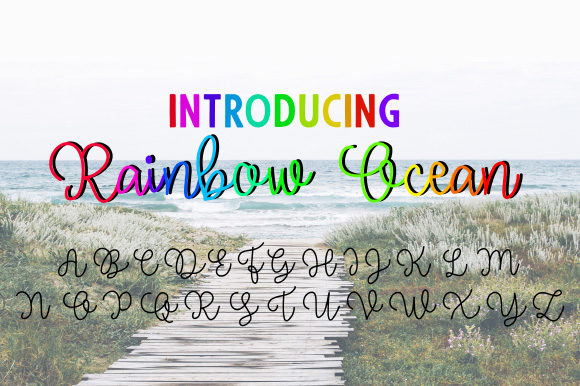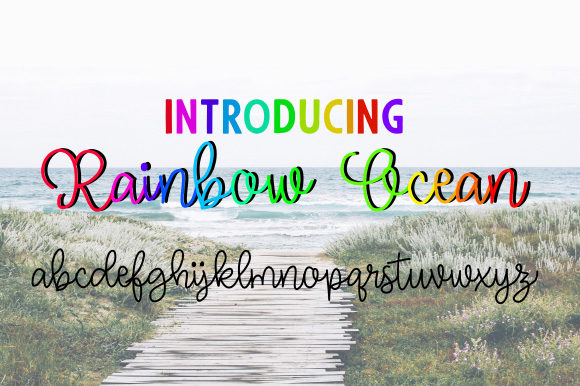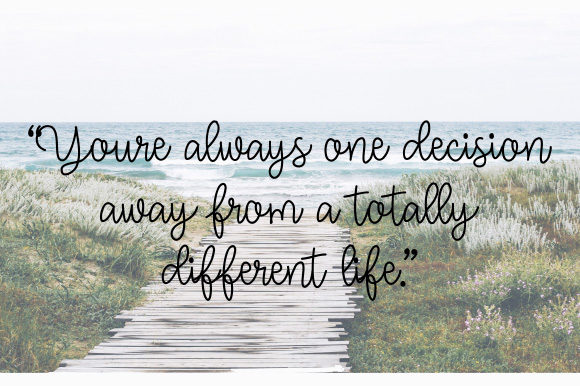
Introduction to Rainbow Ocean Font
Inspired all the colours of the rainbow, Rainbow Ocean is a one-of-a-kind typeface that will add a charming and playful feel to any design idea.
Inspired all the colours of the rainbow, Rainbow Ocean is a one-of-a-kind typeface that will add a charming and playful feel to any design idea!